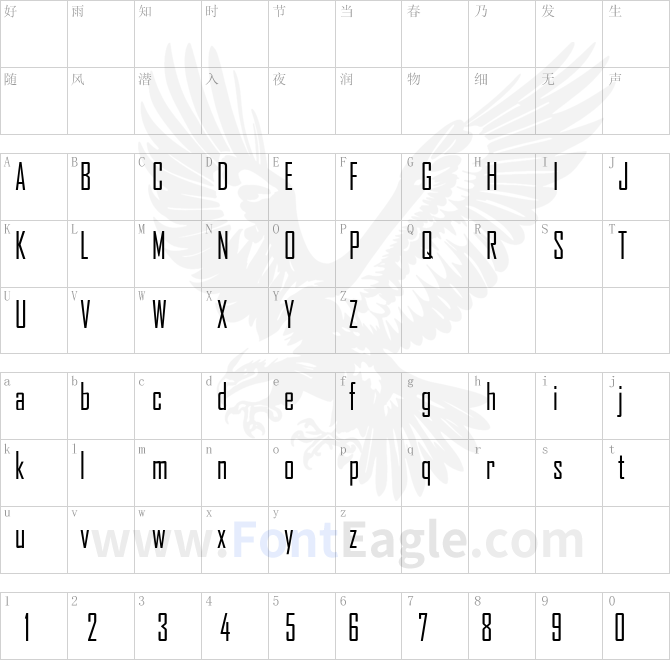
- Font name:AgencyFB
AgencyFB-RegularCondensed is a great font, widely used in graphic design, single-page menu design, poster design and other fields, and is deeply loved by designers.AgencyFB-RegularCondensed download.